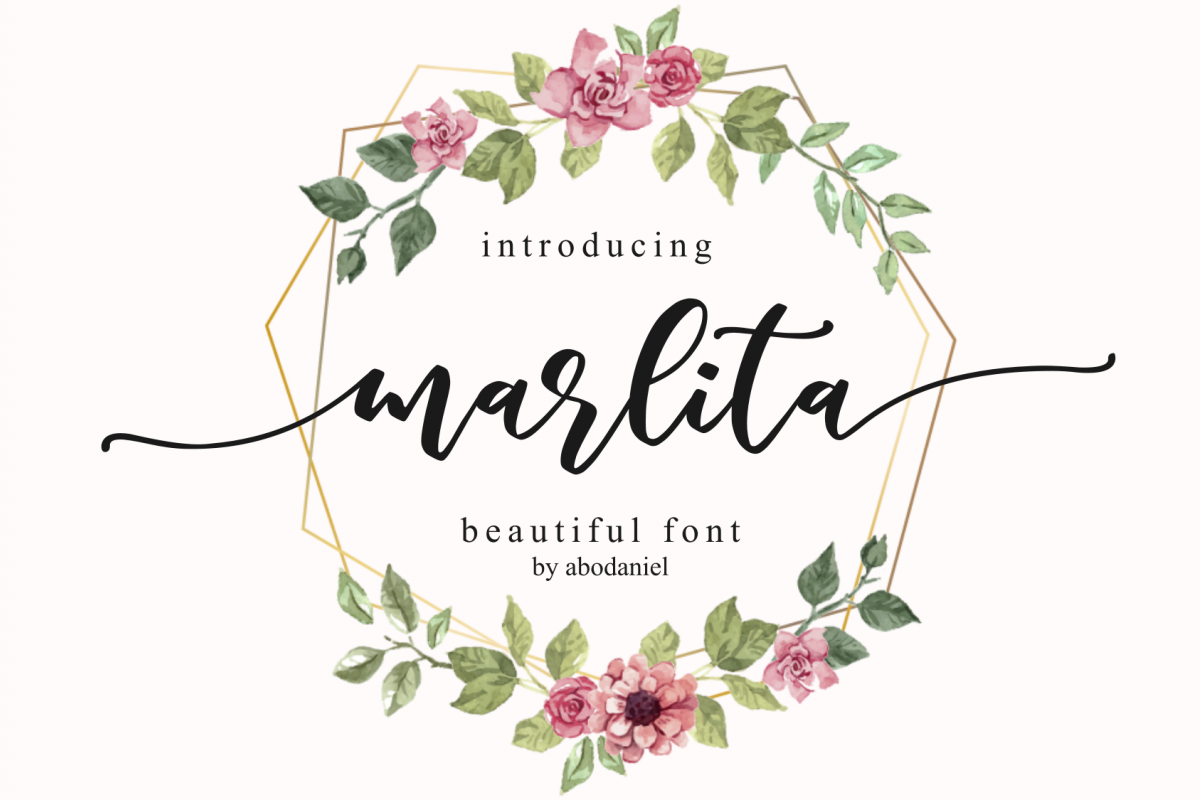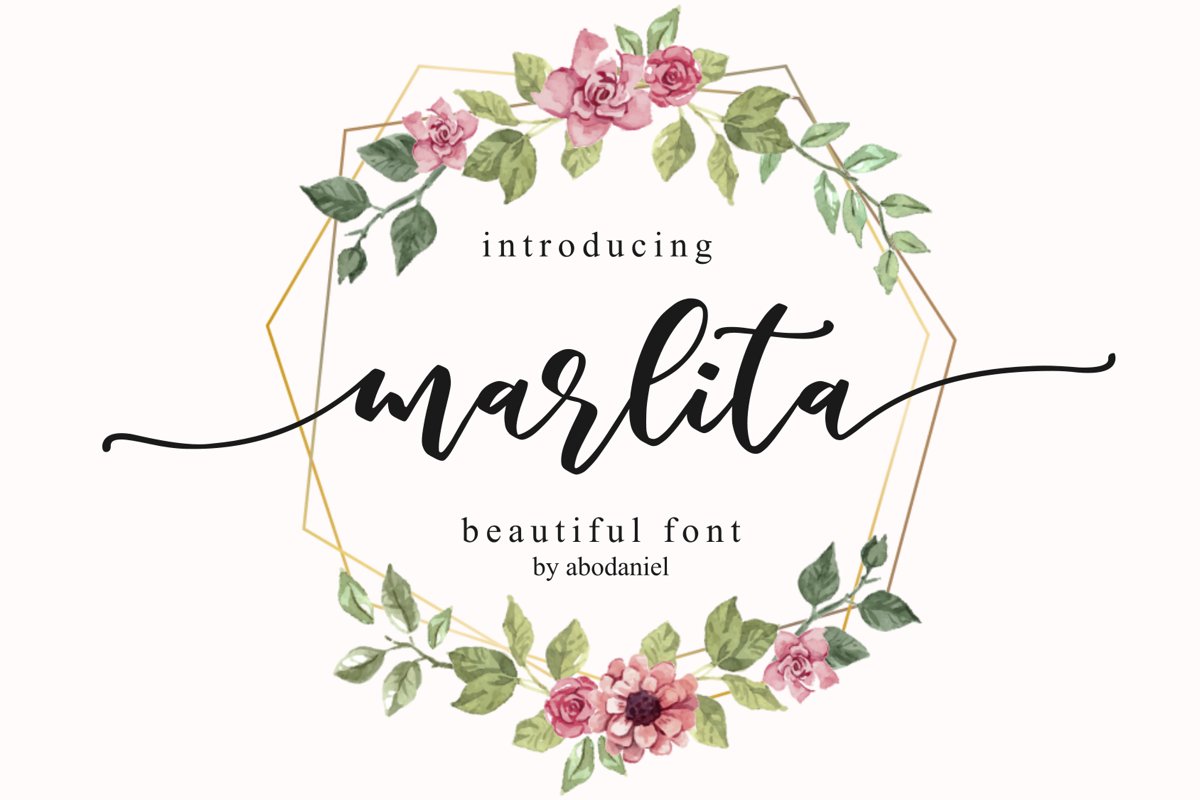
marlita -beautiful font-
marlita titling
marlita ending
marlita
introducing
Marlita -beautiful font-
carefully modern calligraphy
• This font is great for quotes, branding, packaging, wedding card, advertising, and more
• It came with 10 variations of ampersand ( add number 1-9 after ampersand character to access it)
• begining and ending swash make this font is perfectly. (very easy
to access: only adding underscore2x before lowercase for titling, and
underscore2x after lowercase for ending)